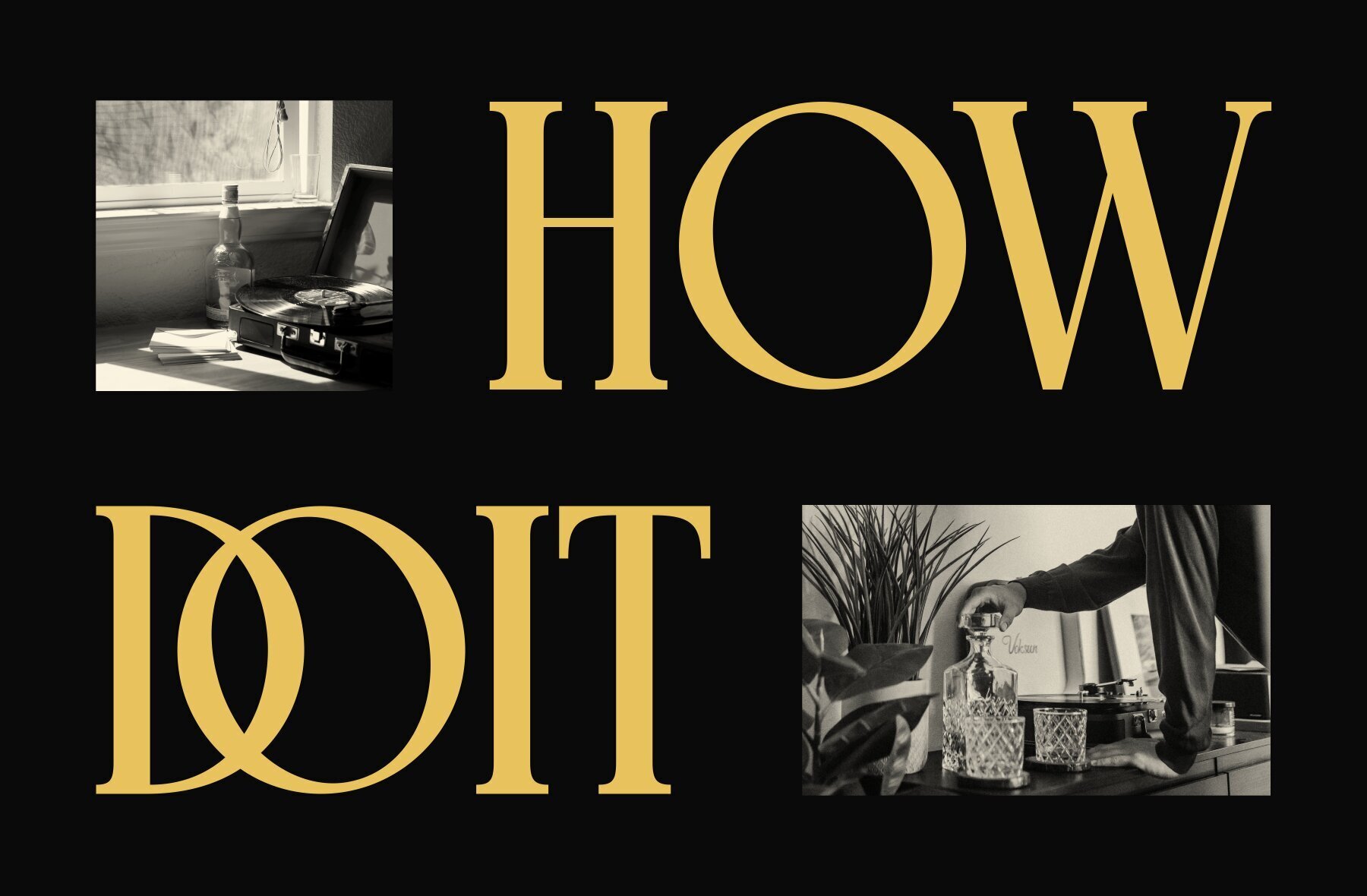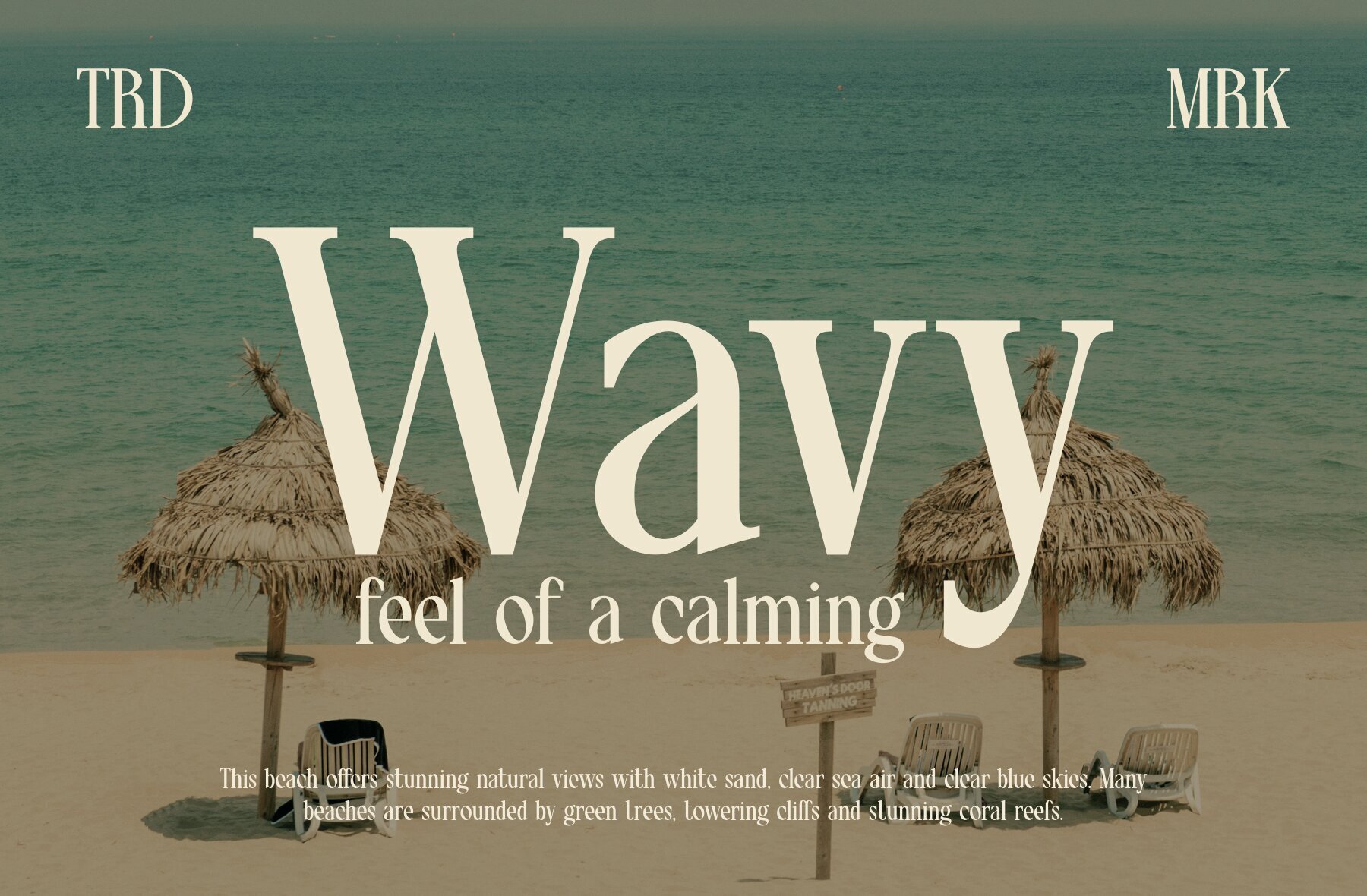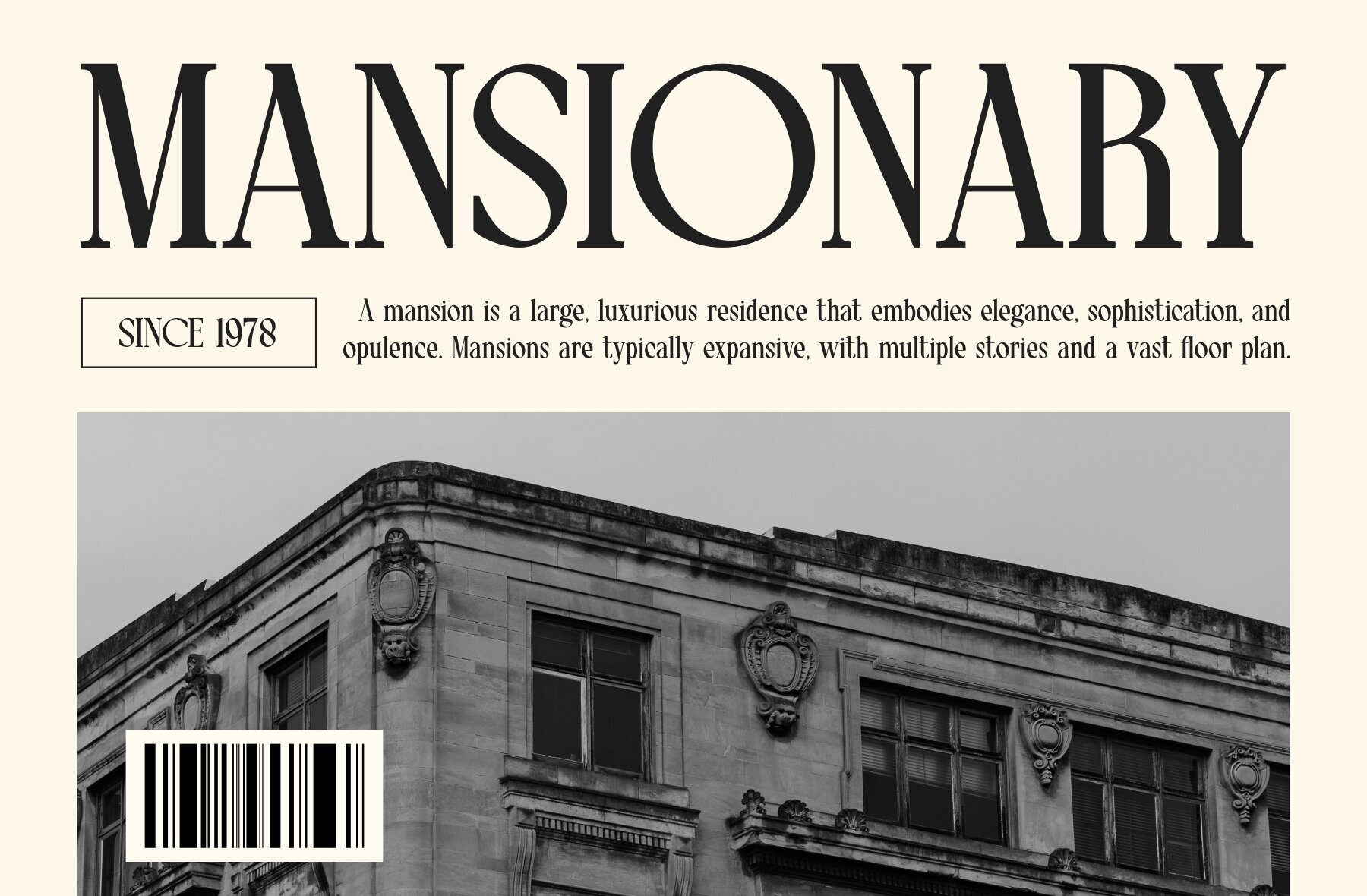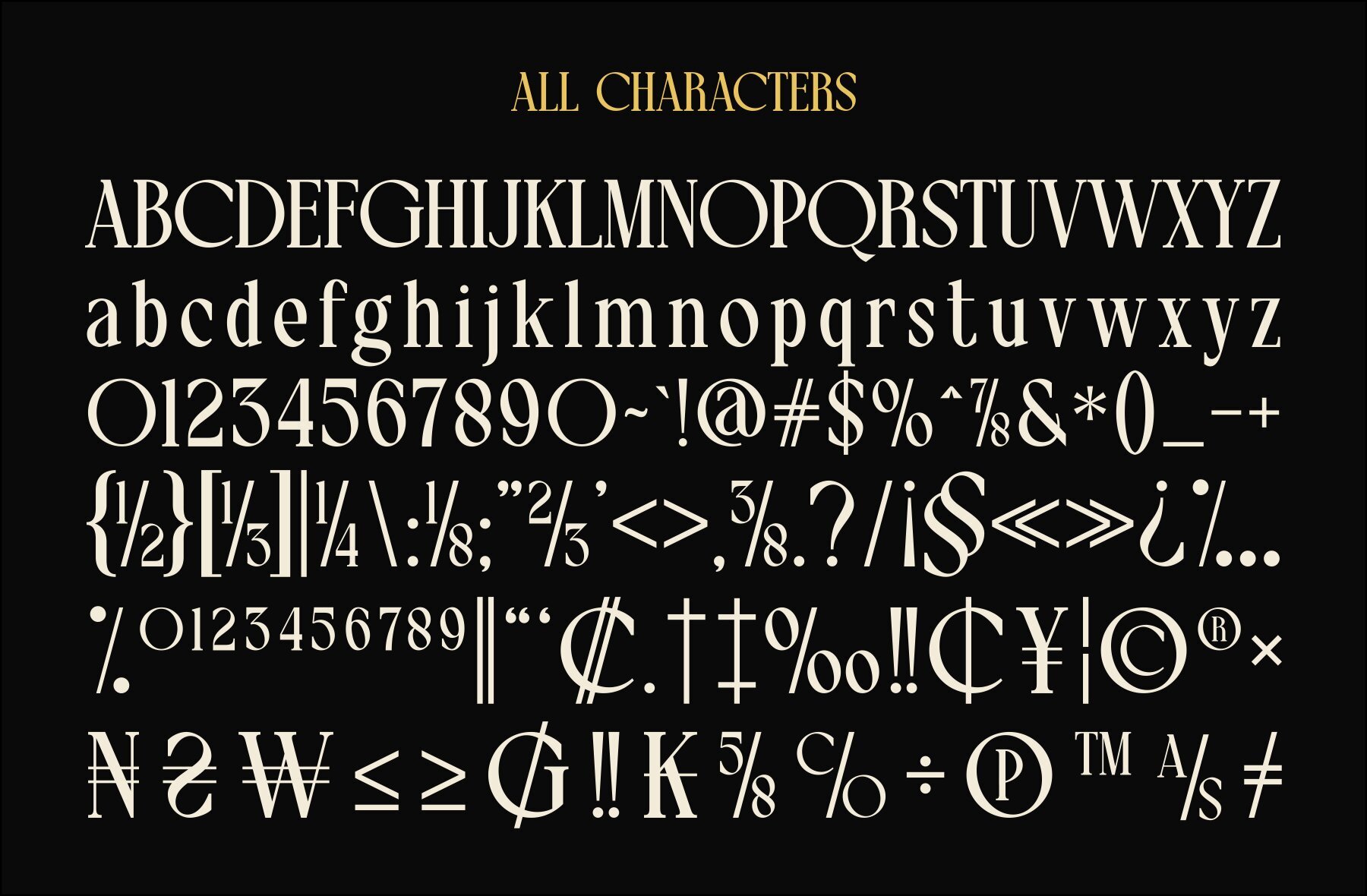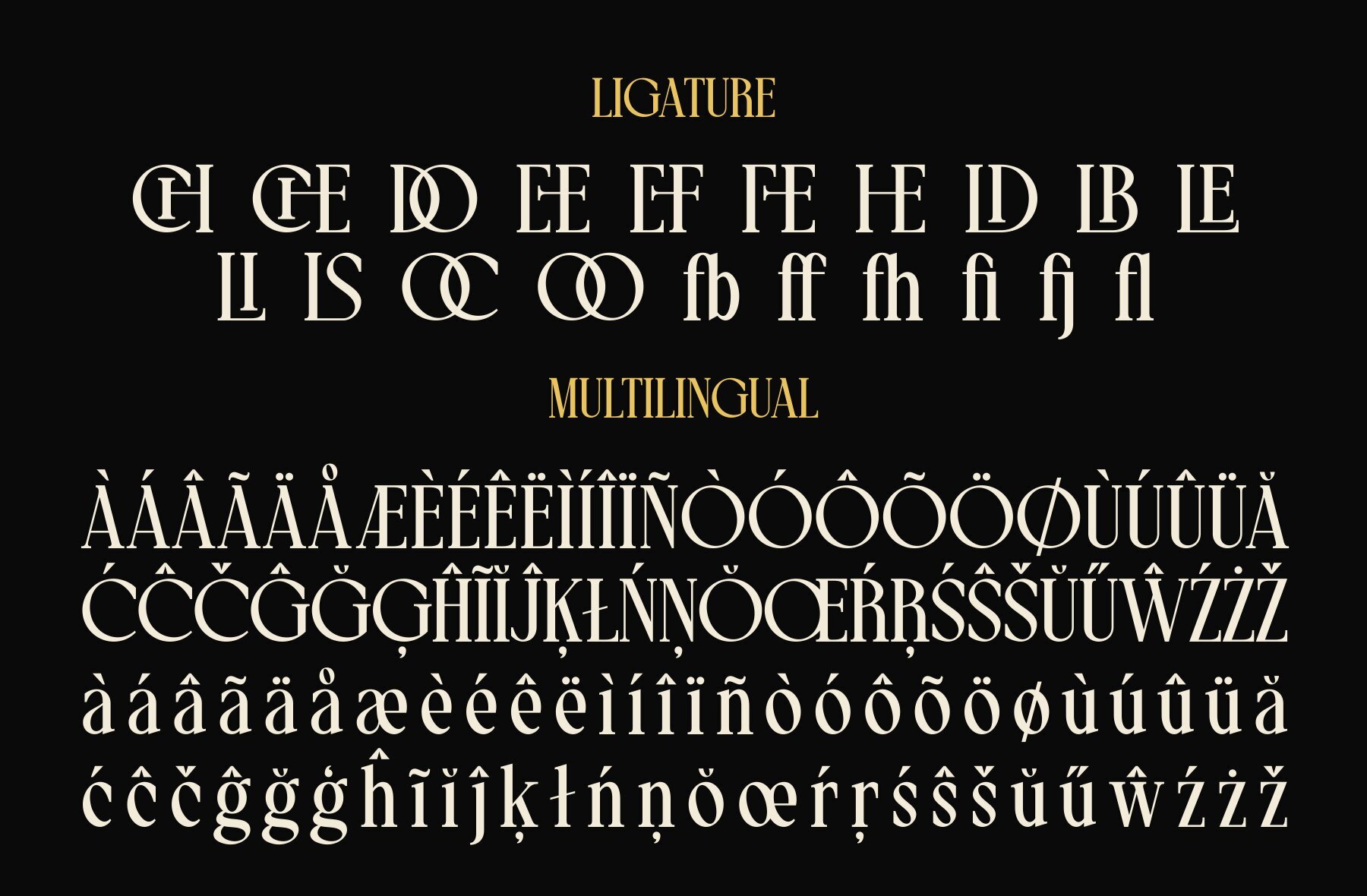
Besoni Font
Besoni Regular
Besoni is a balanced modern serif typeface that combines refined stroke thickness with finesse. Its captivating visuals offer an easy-to-read experience, making it ideal for various design projects. The distinctive contrast between bold and thin lines gives Besoni a contemporary touch that is subtle yet impactful.
Perfect for both digital and print use, Besoni's elegant design ensures clarity and sophistication. This typeface is a great choice for branding, editorial designs, websites, and more. Its modern aesthetic seamlessly complements a wide range of design styles, adding a professional and polished look to your work.